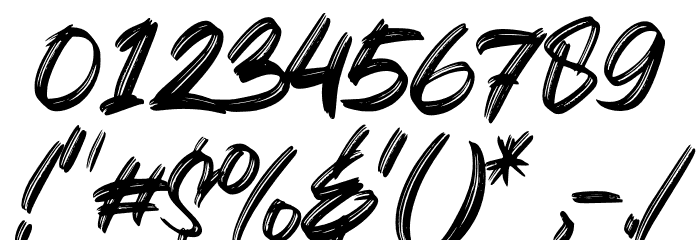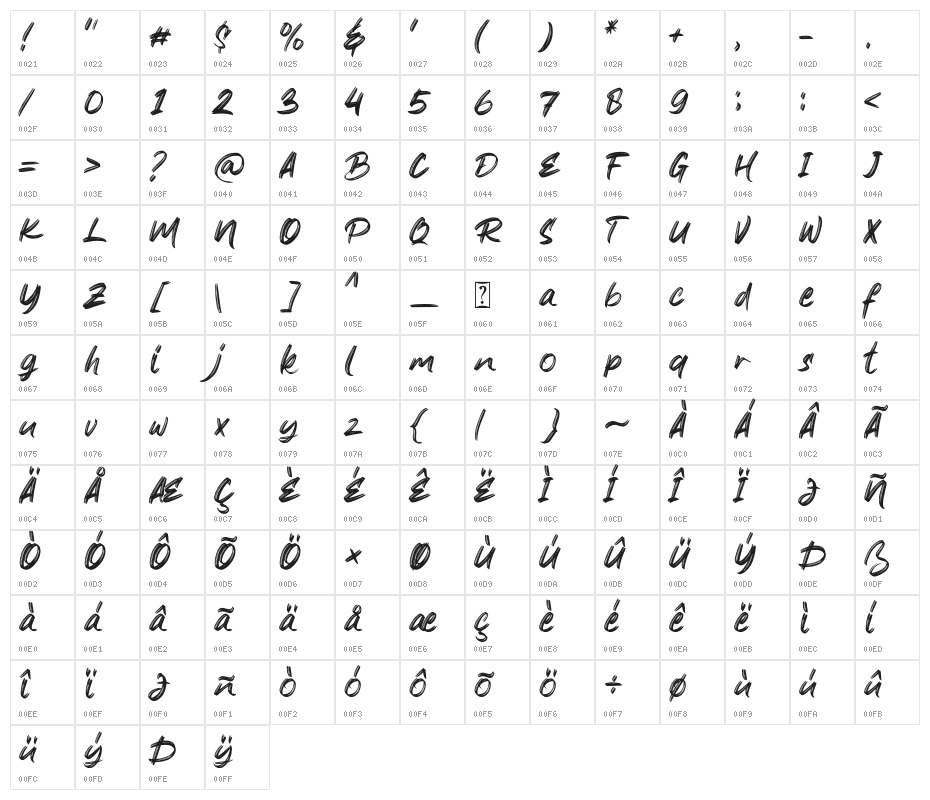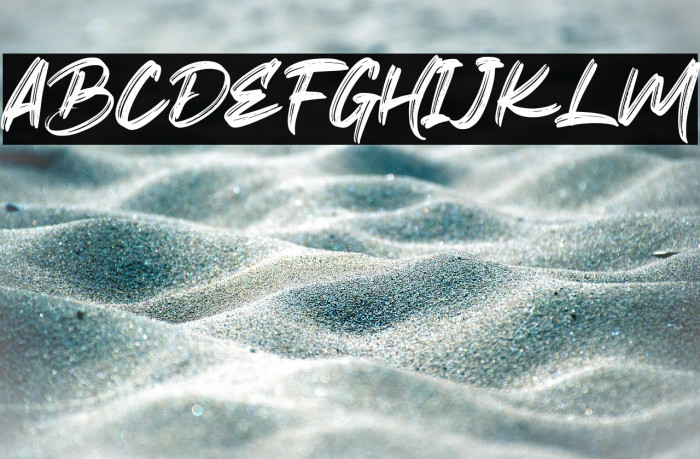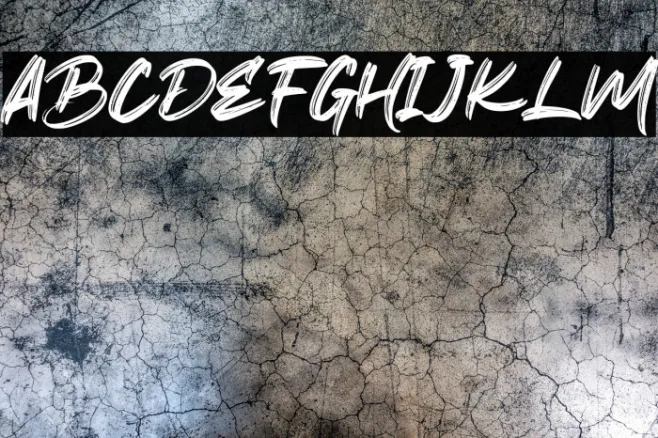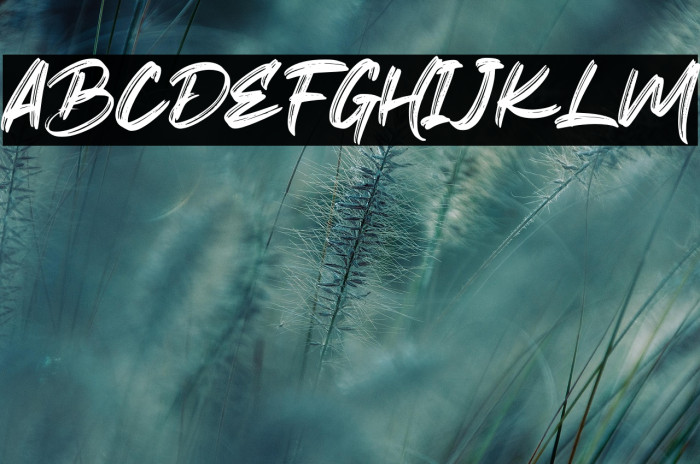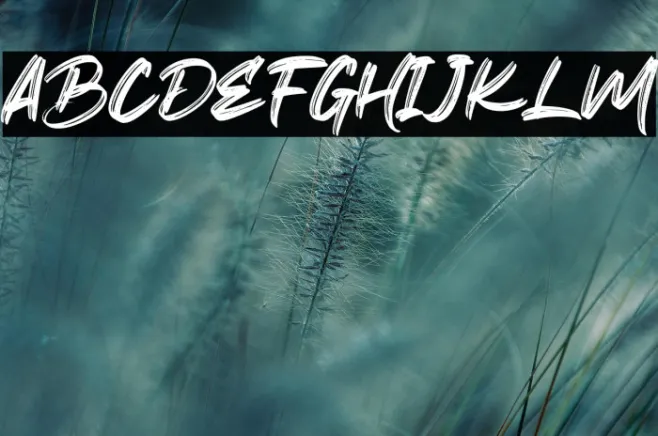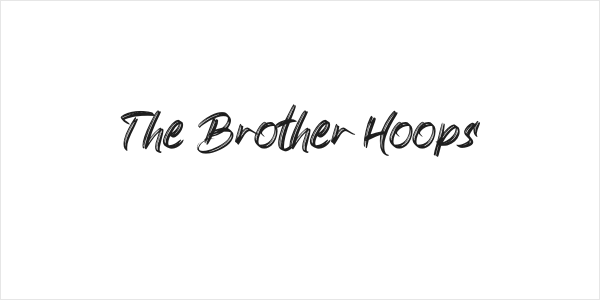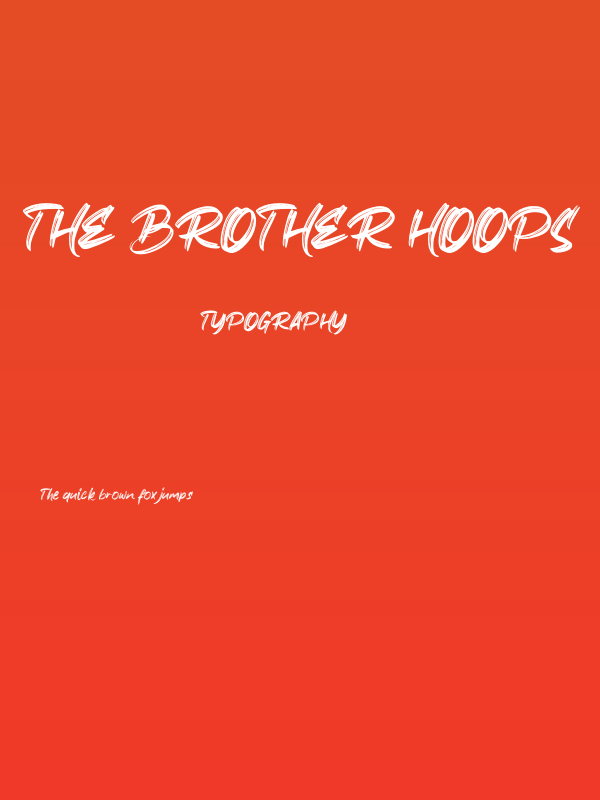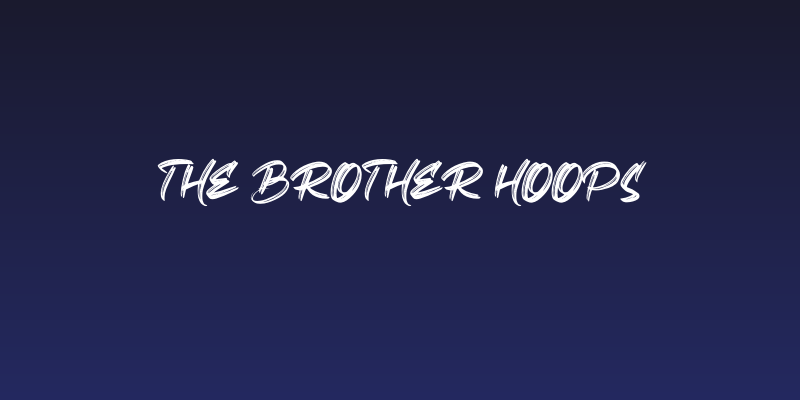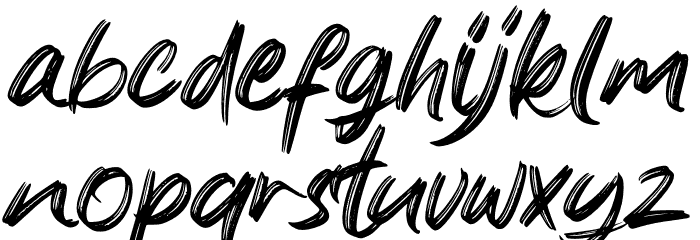
The Brother Hoops Font
The Brother Hoops Description
This font features a dynamic and energetic brush script style, characterized by bold, sweeping strokes and a hand-drawn appearance. The letters exhibit a sense of movement and fluidity, with varying thickness that adds a lively and informal touch. The uppercase and lowercase letters maintain a consistent style, with some letters featuring distinctive loops and curves. The numbers and special characters are equally expressive, maintaining the same brush-like quality. This font is ideal for projects that require a personal, artistic touch, such as invitations, posters, or branding materials.